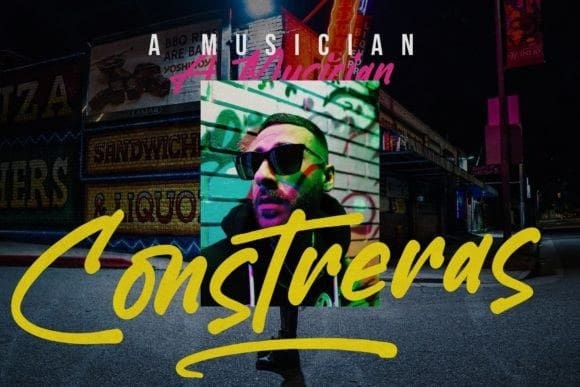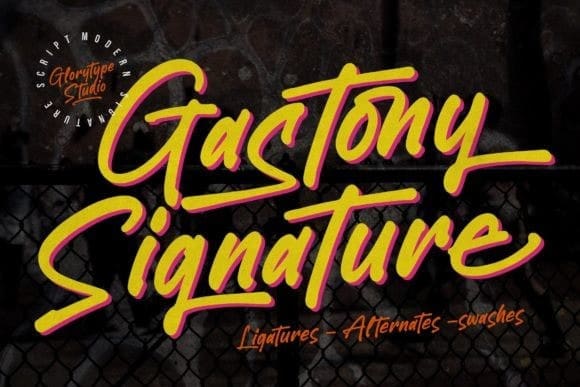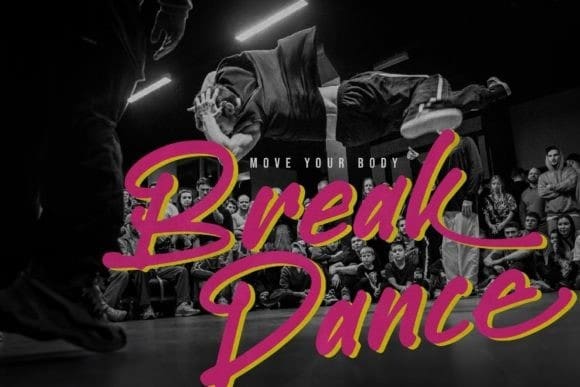
Gastony Signature Font
Gastony Signature Font is a dazzling script font. It is neatly crafted and highly detailed. Whatever the topic, this font will be a wonderful asset to your font library, as it has the potential to enhance any creation.